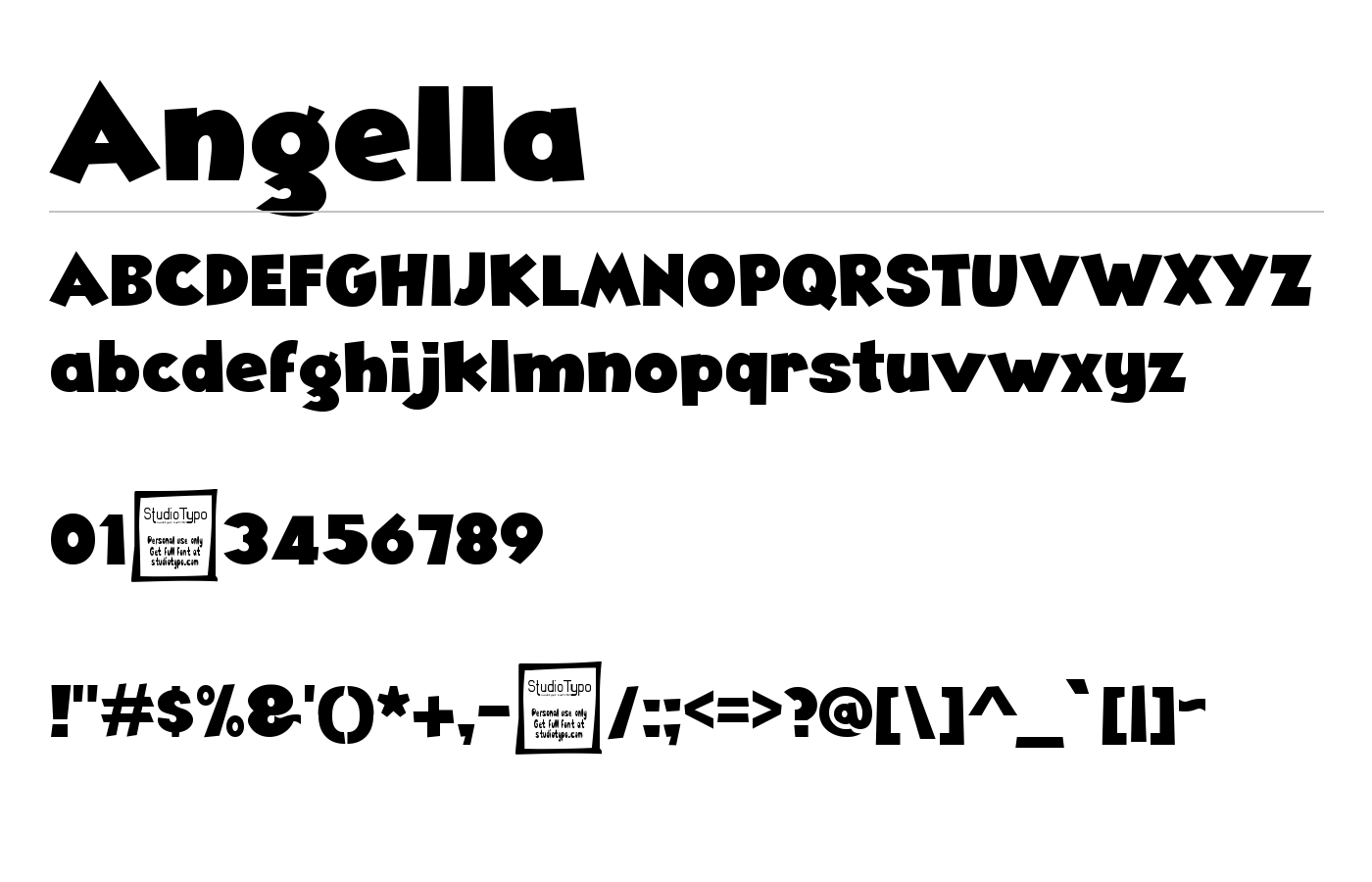
Angella is a bold, playful sans serif font with a quirky, irregular style that adds a fun and energetic vibe to any design. Its thick strokes and exaggerated letterforms make it ideal for eye-catching headlines, posters, and branding that needs a lively and informal personality. This font works well for creative projects aiming to convey friendliness and approachability with a strong, memorable impact.
Angella Font
About Angella Font
| Font family | Angella Font |
| Designer | Mehmet Abacı |